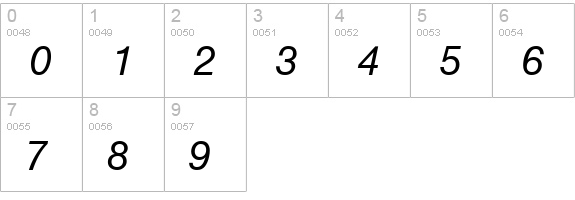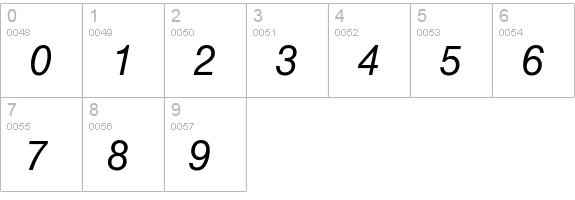
Context Reprise SSi Italic Font Details
Context Reprise SSi Italic is a distinctive, italic variant in the Context typeface family \xE2\x80\x94 well suited to design and typography projects.
Context Reprise SSi Italic font is a stunning and elegant typeface that exudes sophistication and style. Its italic design adds a touch of flair and modernity to any project, making it perfect for both professional and creative use. With its sleek lines and graceful curves, this font is sure to make a statement and enhance the overall look of your designs. Best of all, Context Reprise SSi Italic font is available for free download at FontsMarket.com. This means you can easily access this beautiful font and incorporate it into your projects without any cost. Whether you're working on a website, branding materials, or any other design project, this font will elevate your work and give it a polished and refined look. Don't miss out on the opportunity to use this exquisite typeface for your next project. Download Context Reprise SSi Italic font for free today and take your designs to the next level.